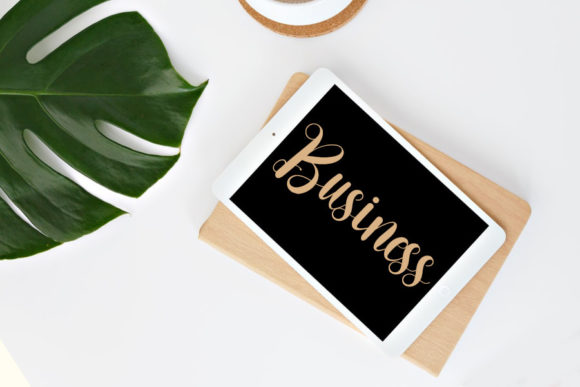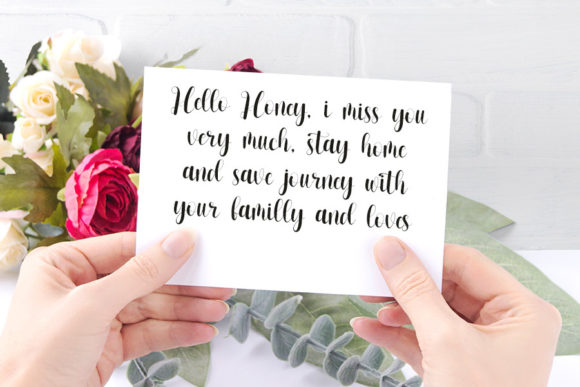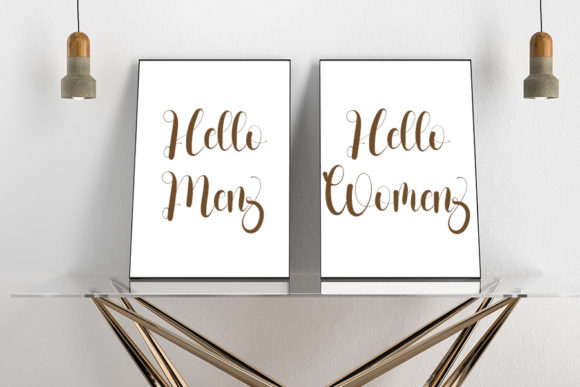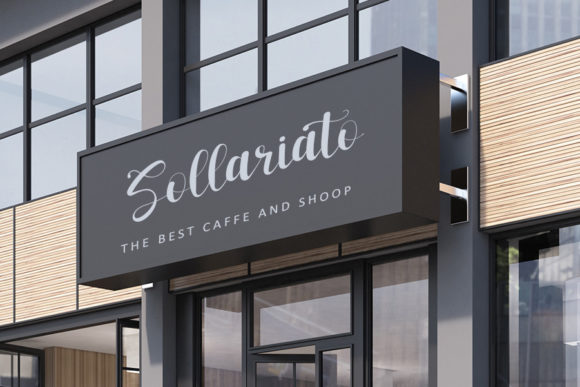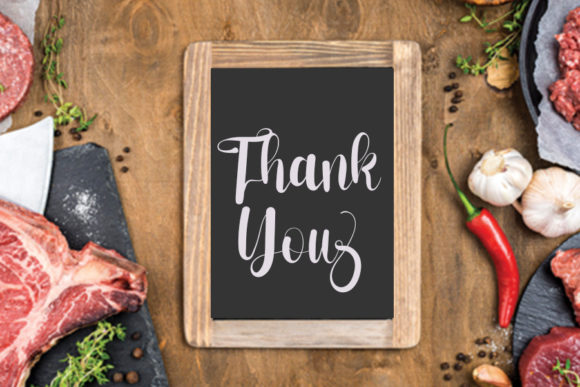
Adding a Touch of Elegance to Your Designs
Have you ever been working on a design project and suddenly felt like something was missing? A dash of magic that would elevate your creation from good to great? For many designers, that missing piece is often a beautiful, elegant font that sets the tone for the entire project.
Enter the Astida Scripto Font, a stunning script typeface that exudes romance and sophistication. With its flowing characters that dance along the baseline, this font is sure to add a luxury spark to any design project you take on. Whether you’re working on a wedding invitation, a luxury brand logo, or a high-end magazine cover, the Astida Scripto Font is the perfect choice to make your design stand out.
Astida Scripto Font Key Features
- Unique Characteristics: Elegant script font with a mix of modern and vintage flair, ideal for creative projects
Astida Scripto Font Review
Overall, I’m quite impressed with Astida Scripto Font, but as with any font, it’s not perfect. Here are my honest thoughts.
- Cursive elegance: Astida Scripto Font has a beautiful, flowing cursive style that’s perfect for adding a touch of sophistication to your designs.
- High legibility: Despite its cursive nature, the font is surprisingly easy to read, making it suitable for a wide range of applications.
- Size limitations: While Astida Scripto Font looks great at medium to large sizes, it can become pixelated and lose its elegance at smaller sizes.
- Limited character set: The font’s character set is somewhat limited, which may not be ideal for languages that require a wide range of characters.
- No bold or italic options: The font is available in regular and script styles, but not in bold or italic, which may limit its versatility.
Astida Scripto Font is a beautiful, elegant font that’s perfect for adding a touch of sophistication to your designs. While it has some limitations, it’s still a great choice for many applications. If you’re looking for a cursive font that’s easy to read and compatible with most devices, Astida Scripto Font is definitely worth considering.
Tips for Getting the Most Out of Astida Scripto Font
For optimal results, use Astida Scripto font for titles, headings, and emphasis. Avoid using it for large blocks of text, as it can be difficult to read. Experiment with different font sizes, colors, and styles to create visually appealing designs.
Astida Scripto font is ideal for creative projects, such as:
– Wedding invitations
– Blog posts
– Branding materials
Alternatives to Astida Scripto Font
Great Vibes Font is a beautiful, elegant script font perfect for creating a sophisticated and luxurious feel in designs. It’s ideal for use in wedding invitations, luxury branding, and high-end packaging.
Compared to Astida Scripto Font, Great Vibes Font has a more refined and classic look, making it suitable for formal occasions. While Astida Scripto Font has a more playful and whimsical feel, Great Vibes Font exudes elegance and sophistication.
Carolyna Pro Font is a modern script font with a touch of sophistication and elegance. It’s perfect for use in high-end branding, packaging, and advertising. It’s also great for creating a luxurious and premium feel in designs.
Compared to Astida Scripto Font, Carolyna Pro Font has a more modern and sleek look, making it suitable for contemporary designs. While Astida Scripto Font has a more vintage and romantic feel, Carolyna Pro Font exudes a sense of modernity and sophistication.
Alex Brush Font is a beautiful, elegant script font perfect for creating a romantic and whimsical feel in designs. It’s ideal for use in wedding invitations, children’s books, and other creative projects.